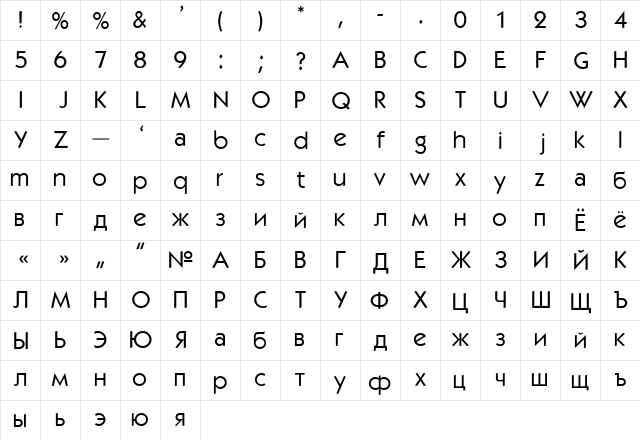
KabelMedium_DG A
Design Context for KabelMedium_DG Typeface
KabelMedium_DG offers clean, dependable letterforms without strong stylistic allegiance, making it a practical choice for designers who need flexibility.